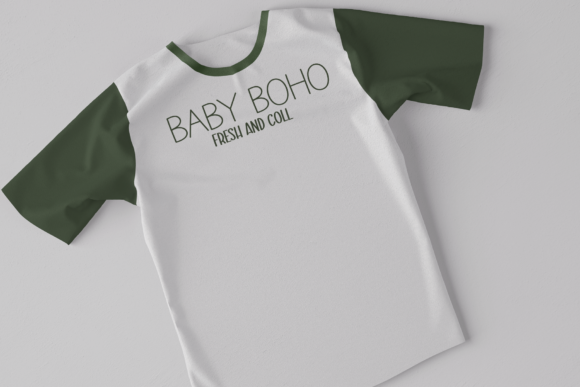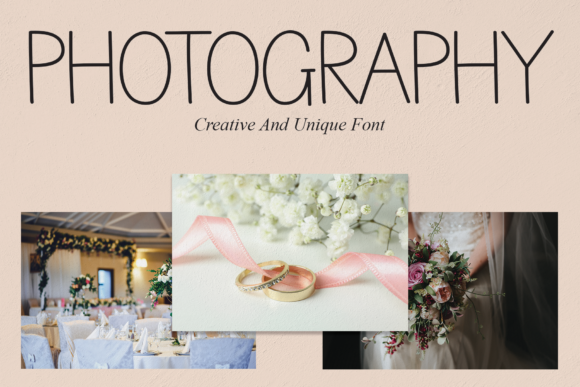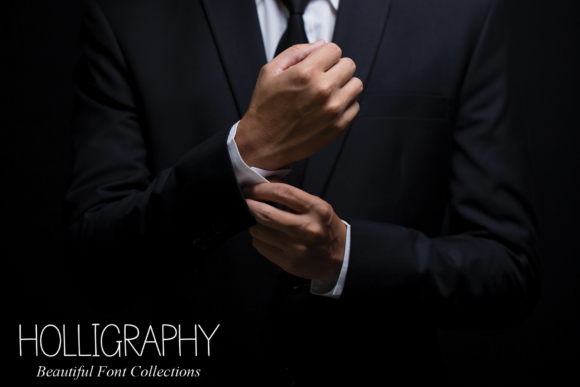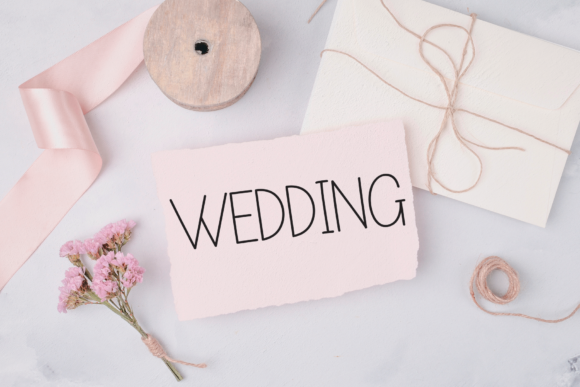
Introduction to Simple Line Font
Simple Line is a clean and simple handwritten font.
It is ideal for wall displays, wedding invitations, social media post logos, advertisements, product packaging, product designs, labels, photography, watermarks, invitations, stationery, and any project that requires a gorgeous vibe .
Key Features of Simple Line Font